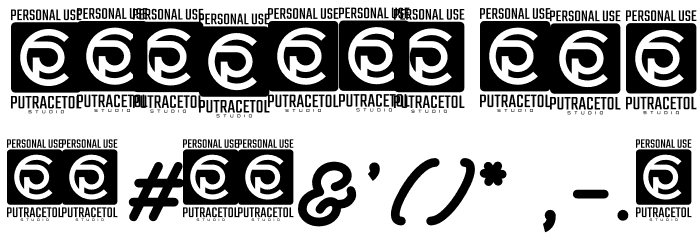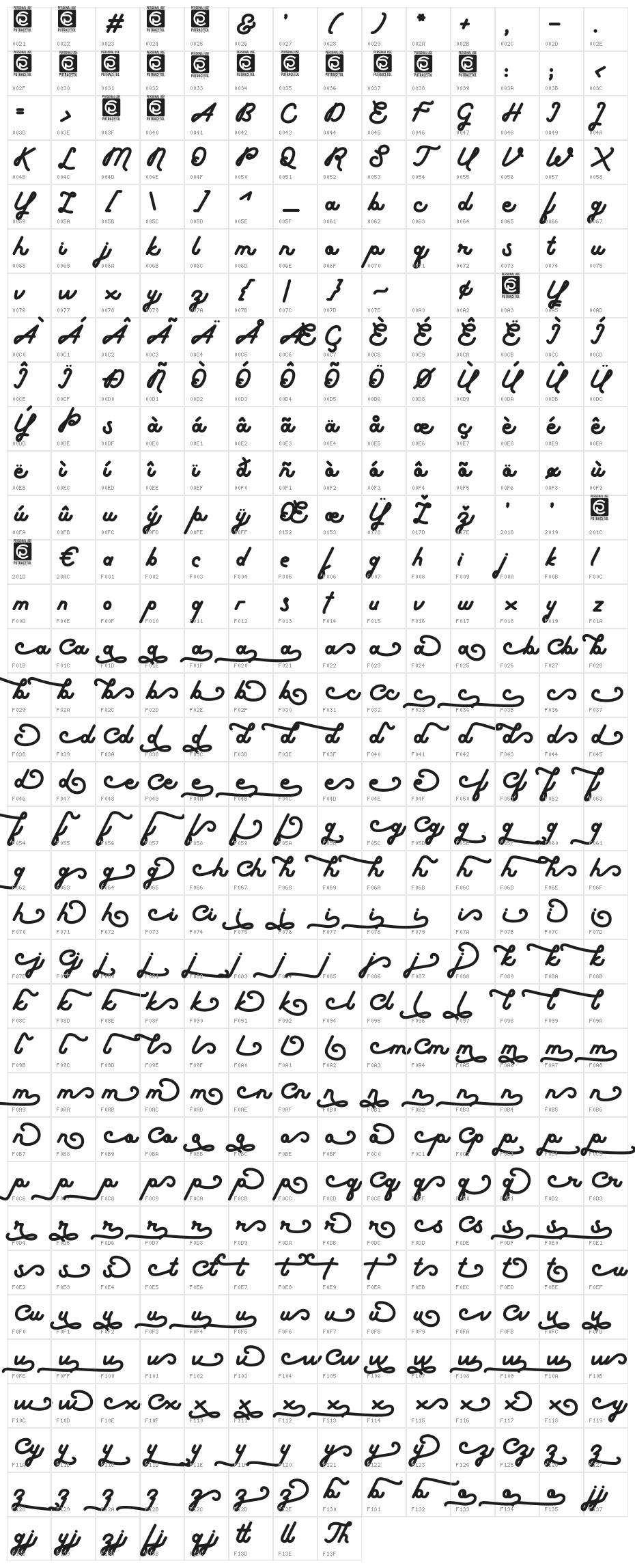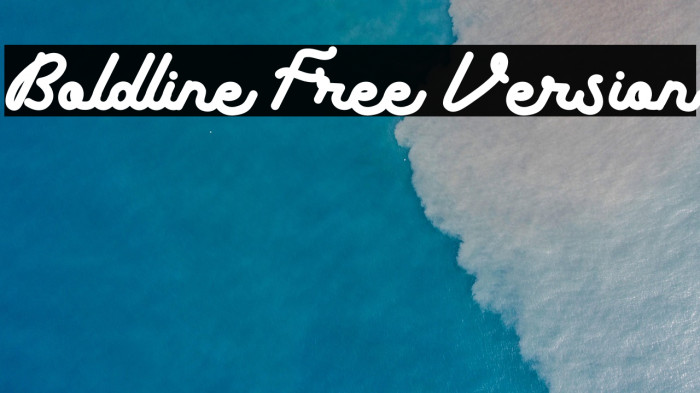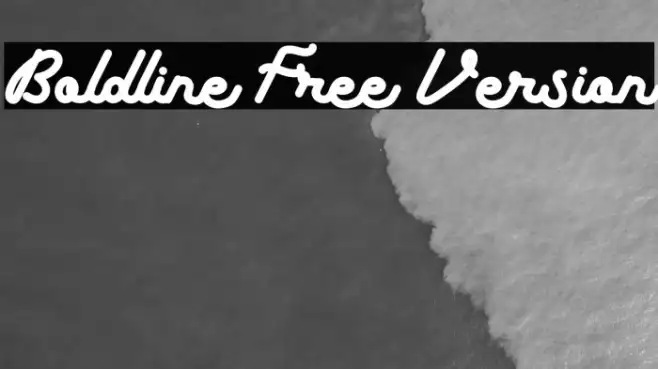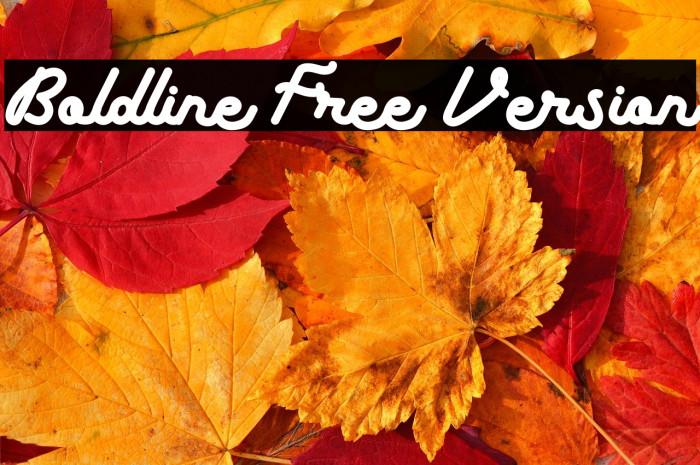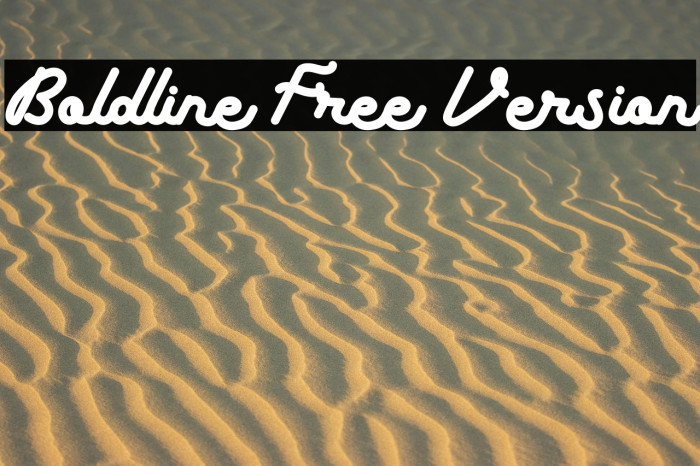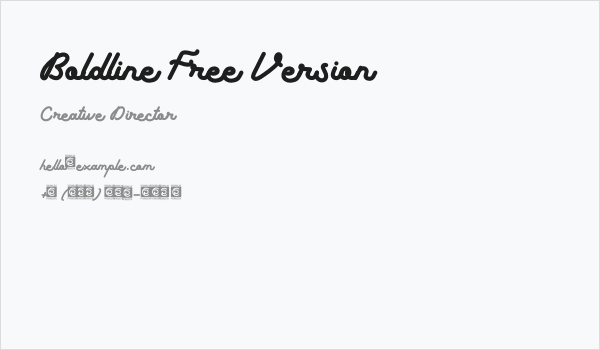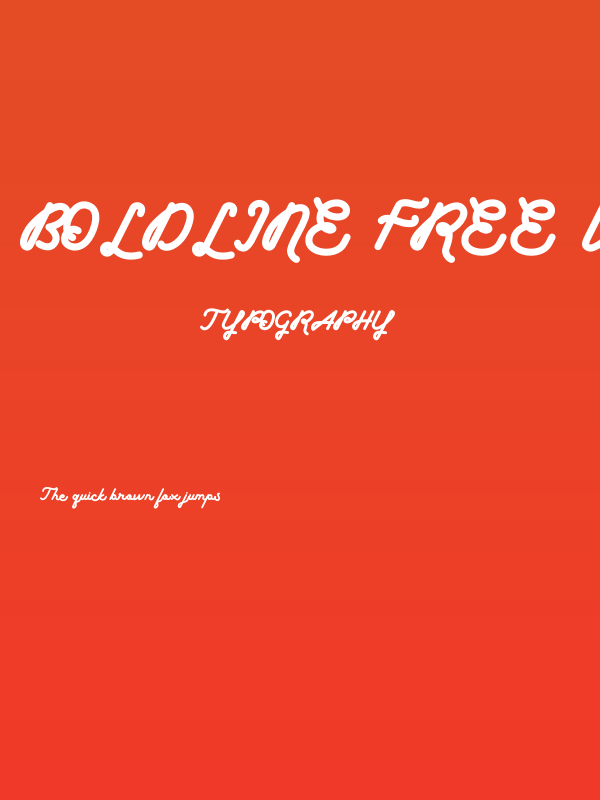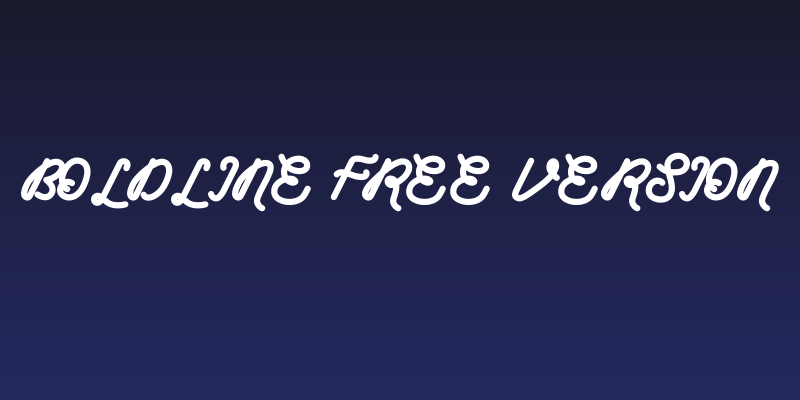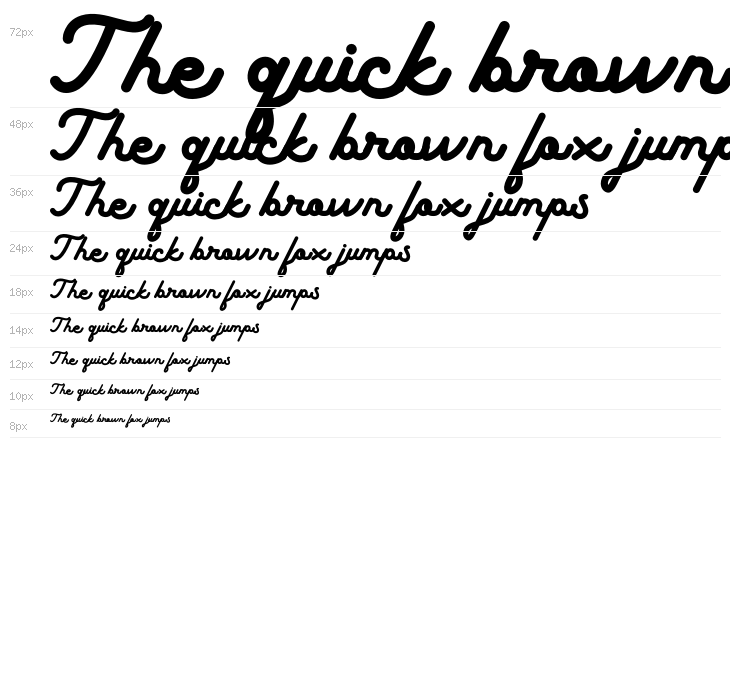
Boldline Free Version Font
Boldline Free Version Description
This font features a bold and flowing script style, characterized by its smooth, connected letters that mimic the fluidity of handwriting. The uppercase letters maintain a consistent height, while the lowercase letters exhibit a slight slant, enhancing the cursive appearance. The font's strokes are thick and uniform, providing a strong visual impact. The special characters are designed to blend seamlessly with the alphabet, maintaining the overall aesthetic. This font is ideal for creating a personal and elegant touch in various design projects.